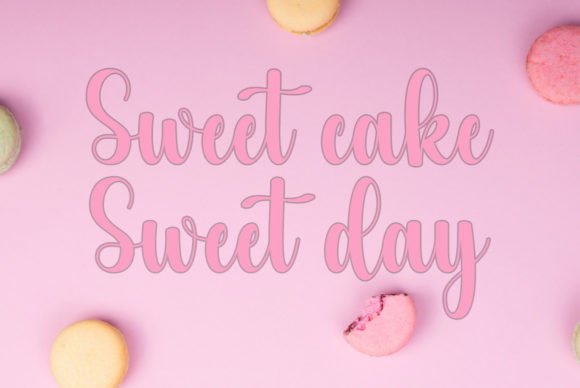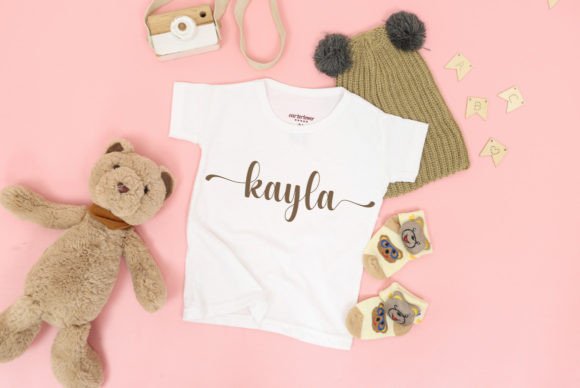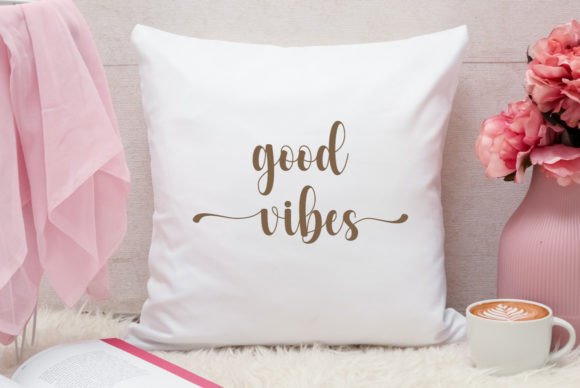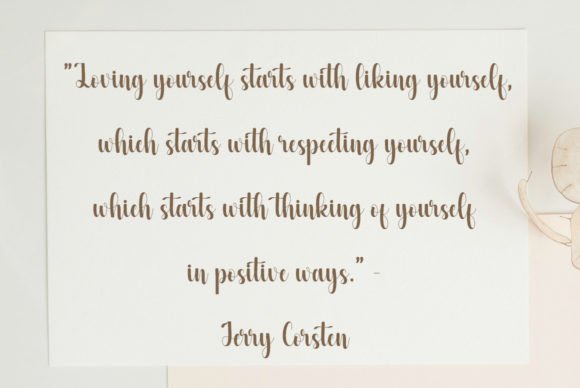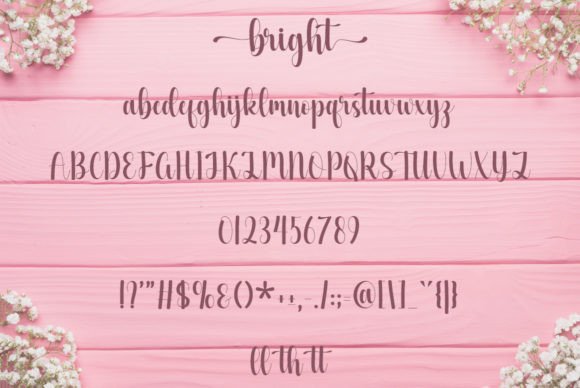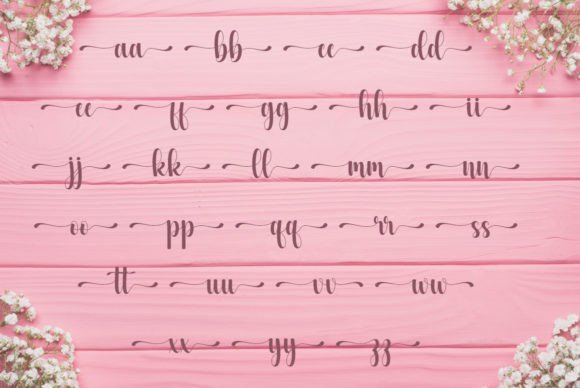
The Bright Font: A Stylish and Elegant Handwritten Delight
Have you ever been in the middle of a design project, and suddenly, you’re stuck on finding the perfect font? I recall a particularly frustrating experience while working on a wedding invitation design. My client wanted something elegant, yet playful, and I was determined to deliver. That’s when I stumbled upon the Bright font, and it completely transformed my design. In this article, we’ll dive into the world of Bright, a stunning handwritten font that can elevate your designs to the next level.
A Personal Review: What I Love About Bright
So, what makes Bright so special? Here are a few things that I absolutely love about this font:
- ✨ Elegant and stylish: Bright has a sophisticated feel to it, making it perfect for wedding invitations, thank you cards, and other formal designs.
- ✅ PUA encoded: The font is PUA encoded, which means you can easily access all the glyphs and alternates, giving you endless creative possibilities.
- 💕 Handwritten touch: Bright has a beautiful, handwritten quality that adds a personal touch to any design.
While Bright is an amazing font, there are a few minor quirks to be aware of:
- 🤔 Glyph access: While PUA encoding makes it easy to access glyphs, you may need to use specific software or plugins to access them.
- ⚠️ Overuse: As with any font, be careful not to overuse Bright. Its elegance can quickly turn to clutter if not used thoughtfully.
The Story Behind Bright: Designer Inspiration
While the origins of Bright are unclear, it’s easy to imagine a designer sitting down with a pen and paper, creating something beautiful and elegant. Perhaps they were inspired by traditional calligraphy or the flowing lines of handwritten letters. Whatever the story, Bright is a testament to the power of handwritten design.
| Font Name | Bright Font |
| Author | Hardiboy Design |
| What is PUA encoding? | PUA (Private Use Area) encoding allows font designers to include additional glyphs and characters that aren’t part of the standard Unicode character set. This means you can access more alternates and glyphs in the Bright font. |
| Is Bright suitable for body text? | While Bright is an elegant font, it’s best suited for headings and titles. For body text, consider a clearer, more legible font to ensure readability. |